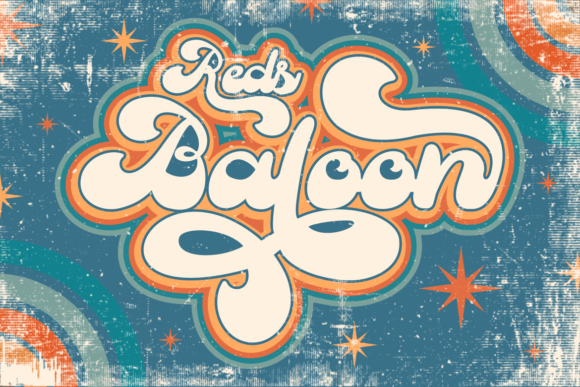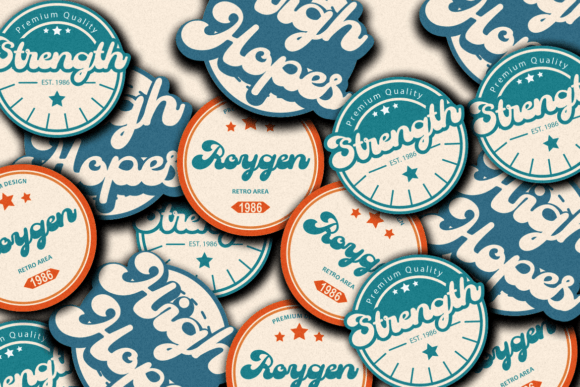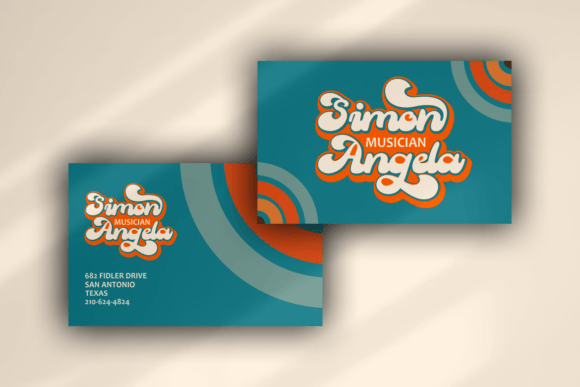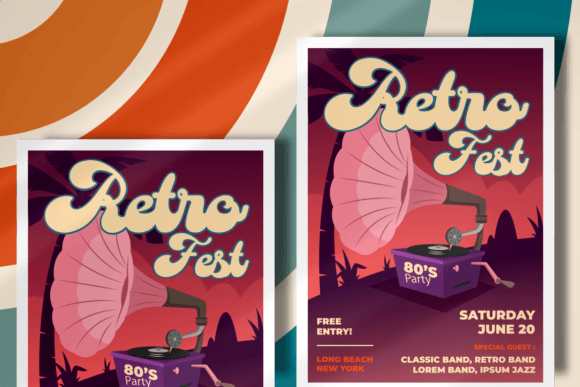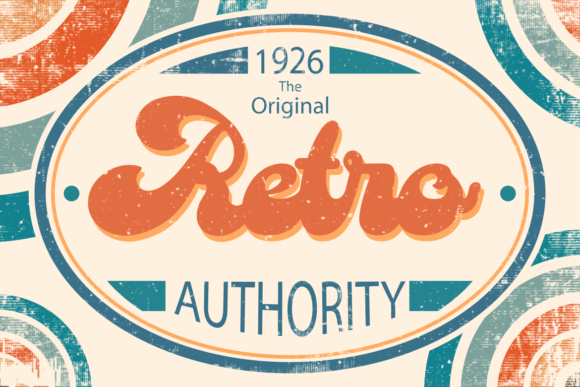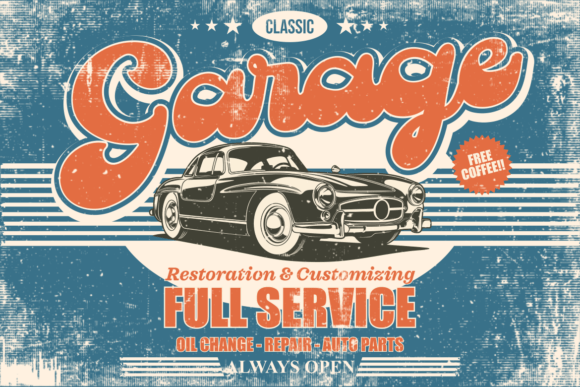
Introduction to Psykron Font
Have you ever stumbled upon an old, dusty design book in a thrift store, and as you flip through its yellowed pages, you’re instantly transported to a bygone era of groovy graphics and retro flair? That’s exactly what the Psykron Font does – it takes you on a journey back in time to the carefree days of vintage design, where creativity knew no bounds.
As a designer, you know how valuable a unique and high-quality design resource can be. That’s why the Psykron Font is a game-changer. With its captivatingly thick lower section and unique, teabaly groovy style, this font is sure to catch the eye and stir nostalgia. Whether you’re working on a creative project or simply need a design element that pops, the Psykron Font is the perfect addition to your toolkit.
Key Features of Psykron Font
- Unique, modern font with a transparent background, ideal for graphic designers and digital artists.
- Available in a single weight, with a large x-height and high resolution, making it suitable for both print and digital applications.
- Designed to be highly legible and versatile, with a wide range of applications, from branding to editorial content.
- Perfect for designers looking for a modern, high-quality font to elevate their creative project.
Honest Review: Psykron Font
As a designer, I’m always on the lookout for high-quality design resources to elevate my creative projects. Recently, I stumbled upon the Psykron Font, and I’m excited to share my honest review.
What works well: ✨ The Psykron Font is incredibly versatile, with a sleek and modern design that’s perfect for a wide range of creative projects. The font is available for free download, which is a huge plus for designers on a budget. The transparent background feature also makes it easy to customize and integrate with different design elements.
What doesn’t: ⚠️ While the Psykron Font is a great resource, I did encounter some limitations. The font family is relatively small, which may not be ideal for designers who need a wide range of font styles for their projects. Additionally, the font may not be suitable for printing, as it’s optimized for digital use.
Overall, I’m impressed with the Psykron Font. Its high-quality design and versatility make it a great addition to any designer’s toolkit. However, designers should be aware of the limitations mentioned above before incorporating it into their creative projects.
- Transparent background feature
- Suitable for digital use
- Modern and versatile design
Tips for Getting the Most Out of Psykron Font
To get the most out of the Psykron Font, use it in combination with a transparent background to create a high-quality design. You can also use it in creative projects such as logos, business cards, and brochures. Remember to download the font for free to access its full range of features.
The Psykron Font is a versatile design resource that can be used in a variety of creative projects. Some common use cases include:
- Business card design
- Brochure design
- Infographic design